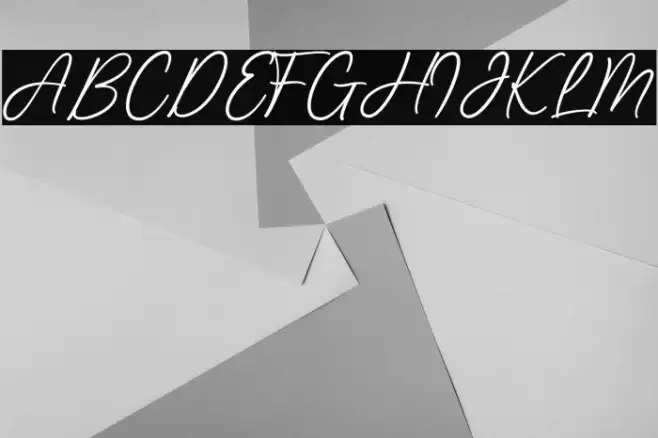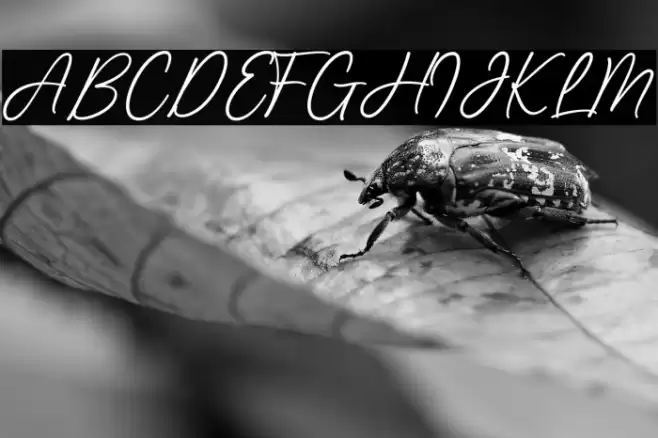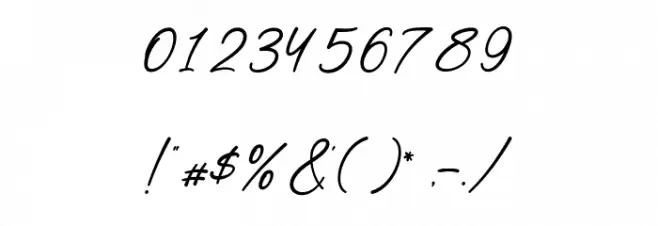
Richmond Regular Font
Richmond Regular Description
This elegant script font features a fluid and graceful design, characterized by its smooth, flowing strokes and delicate curves. The letters are connected in a cursive style, giving it a handwritten appearance that is both sophisticated and approachable. The uppercase letters are slightly larger and more ornate, while the lowercase letters maintain a consistent rhythm and balance. The numerals and special characters complement the overall style, ensuring versatility in various applications. This font exudes a sense of refinement and is ideal for projects that require a personal touch.
A graceful script font with fluid, connected strokes and a handwritten appearance from Uncategorized fonts.
- Font: Richmond Regular
- Proposed Projects: Ideal for wedding invitations, greeting cards, personal branding, and elegant packaging.
- Overall Style: Elegant
- Use Case: Logos, Invitations, Personal Branding